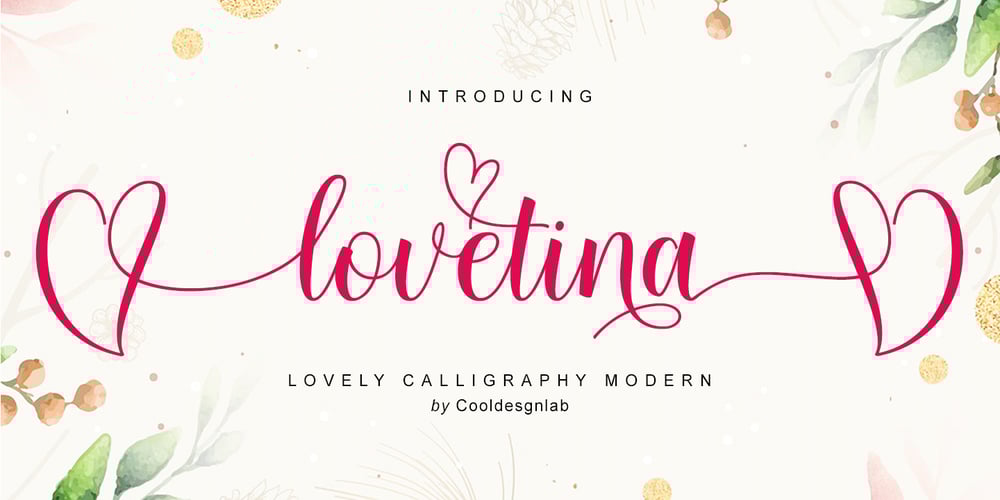
Lovetina
Lovetina font
Lovetina Font Family was designed by Kurniadi Saputra and published by Cooldesignlab. Lovetina contains 1 styles and family package options. Meet the new slick calligraphy font – Lovetina. This gorgeous script is for those who need some elegance and style for their designs and is perfect for wedding invitations, saving date cards, feminine branding, and other necessities. This font is modern with a love style, but still authentic.Lovetina includes the complete set of Basic Uppercase and Lowercase Characters, Numbers, and Punctuation. It also contains binders and many stylistic alternatives to perfectly recreate natural calligraphy (check the preview to see all of them).